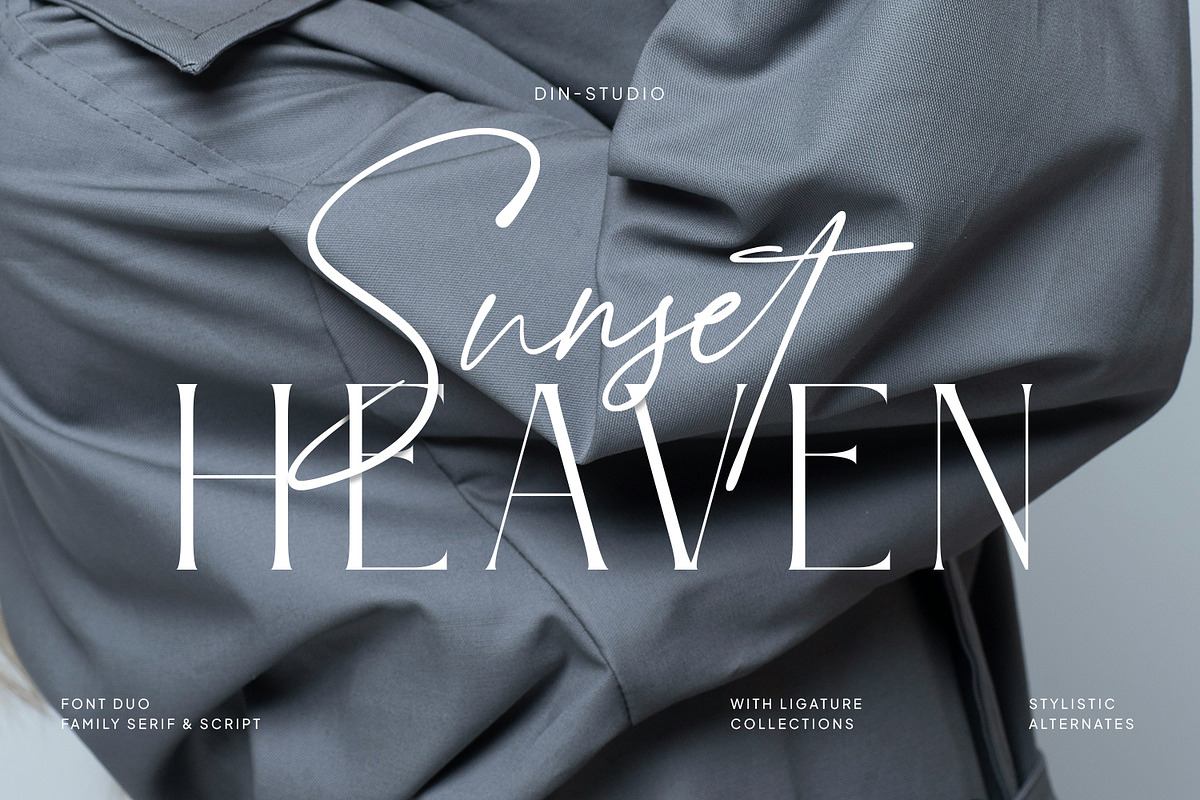
Sunset Heaven Font Free Download is a warm, inviting script typeface with a relaxed, elegant vibe. Inspired by the soft curves of sunset skies, this font is perfect for creating dreamy, romantic designs such as wedding invitations, branding, social media graphics, and lifestyle content.
With its flowing letterforms and artistic flair, Sunset Heaven adds a personalized, handcrafted touch to any project, making it ideal for designs that need a sophisticated yet approachable look.